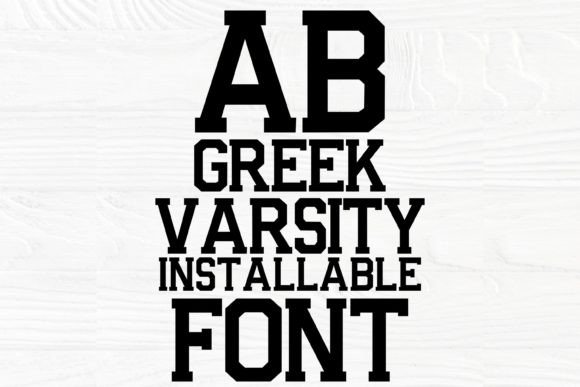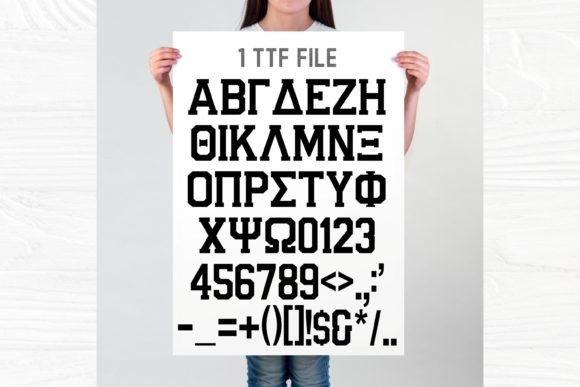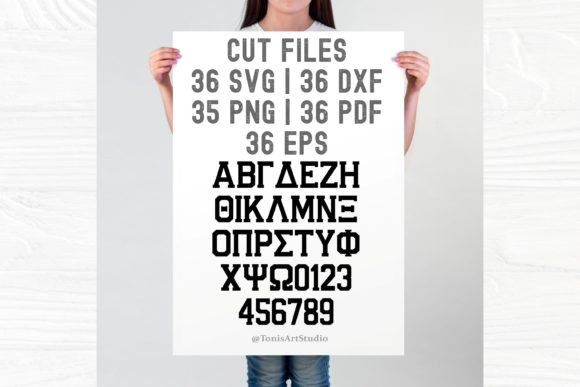
Introduction to Greek Varsity Font
Add a touch of tradition and sophistication to your crafting projects with this Greek Varsity font featuring the classic Greek alphabet in a stylish and versatile design.
Perfect for incorporating Greek letters into your DIY creations, this Greek font set is ideal for a wide range of projects, from apparel to home decor Elevate your crafting game with the timeless elegance of Greek writing and make a statement with every piece you create.
Key Features of Greek Varsity Font
Why Choose Greek Varsity Font?
Greek Varsity Font offers exceptional quality and versatility, making it a valuable addition to your design toolkit. Whether you’re creating for personal projects or commercial use, Greek Varsity Font delivers professional results.